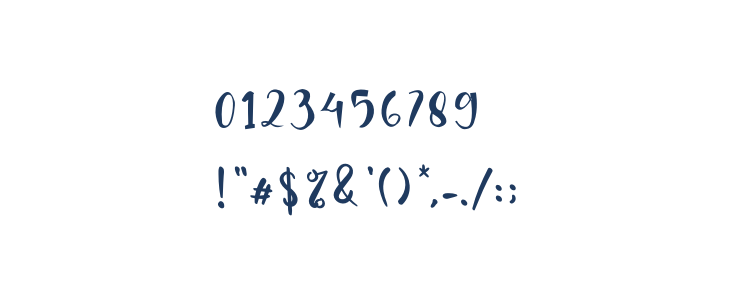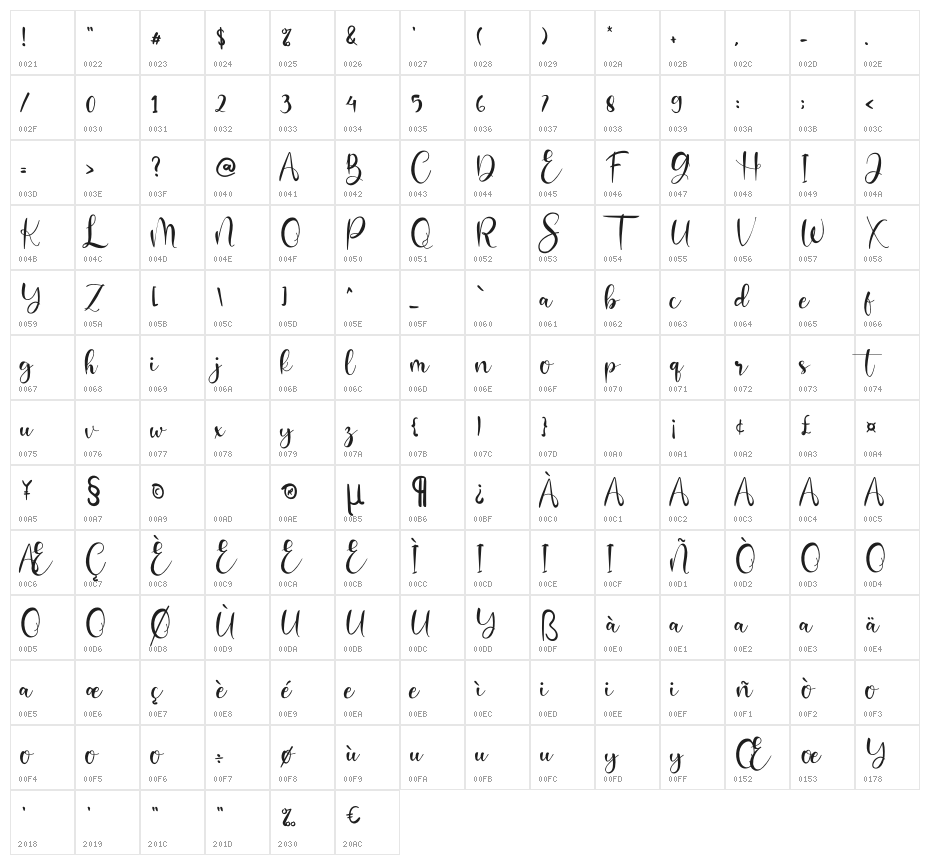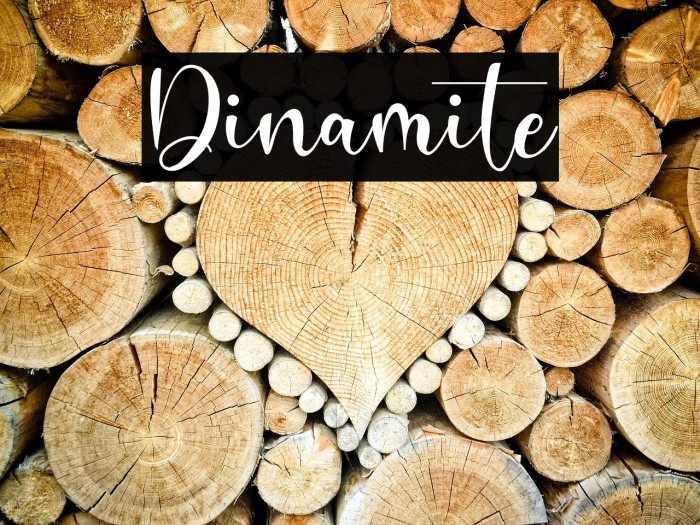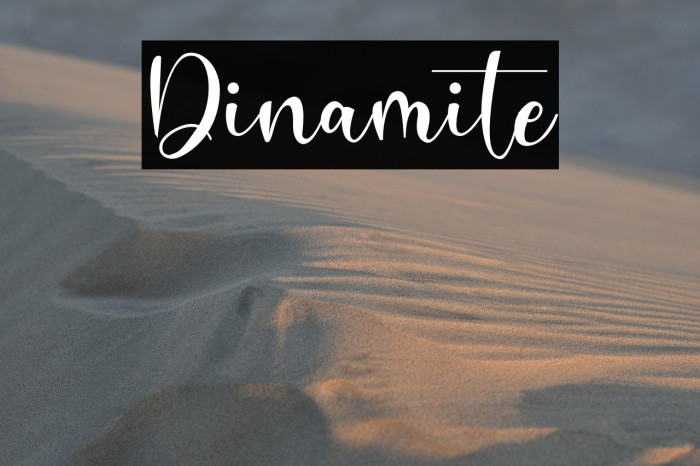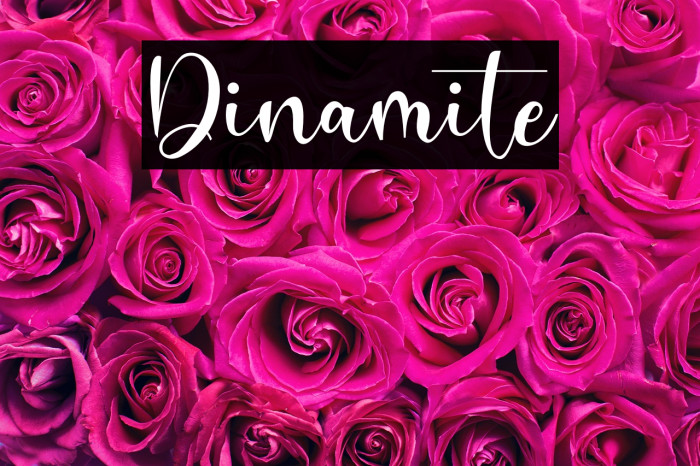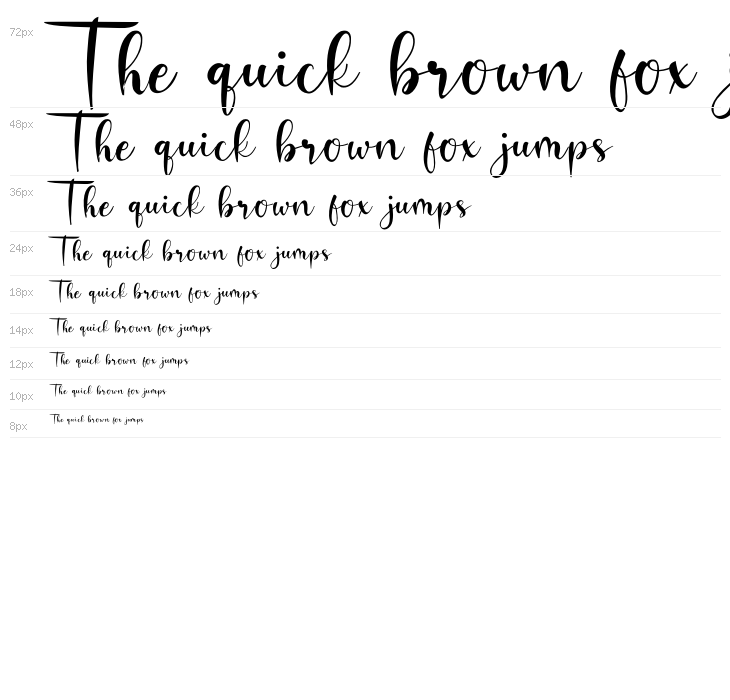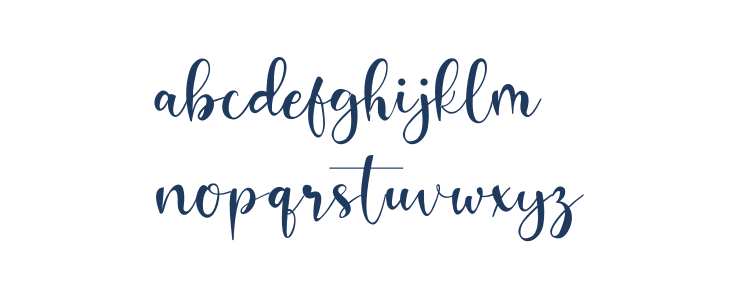
Dinamite Font
Dinamite Description
This font features a dynamic and expressive script style, characterized by its fluid and elegant letterforms. The uppercase letters exhibit a playful yet sophisticated flair, with varying stroke widths that add a sense of movement and energy. The lowercase letters maintain a cohesive flow, complementing the uppercase with their graceful curves and loops. Numbers and special characters are crafted with the same attention to detail, ensuring consistency across all elements. The overall design is both modern and timeless, making it suitable for a variety of creative applications.
| Proposed Projects | Ideal for wedding invitations, branding projects, greeting cards, and elegant packaging designs. |